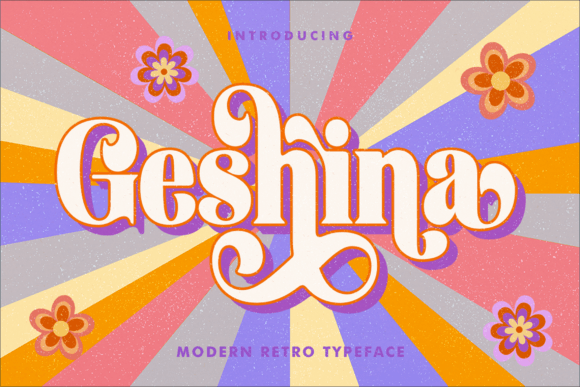
Are you looking for the perfect font to add a touch of romance to your designs? Look no further than Geshina Font, the best font for vintage T-shirts and more! Created by the talented designers at Akbartype, Geshina is a retro display font that is both refined and cheerful.
Featuring lots of curvy letters, Geshina is the ideal choice for anyone who wants to add a personalized touch to their wedding invitations, cards, or any other design project. With its vintage feel and romantic style, this font will help your designs stand out from the crowd.
But Geshina isn't just a pretty face. This font is also packed with features that make it a versatile choice for a wide range of design projects. With its clean lines and classic style, Geshina is perfect for anything from logos and branding to product packaging and web design.